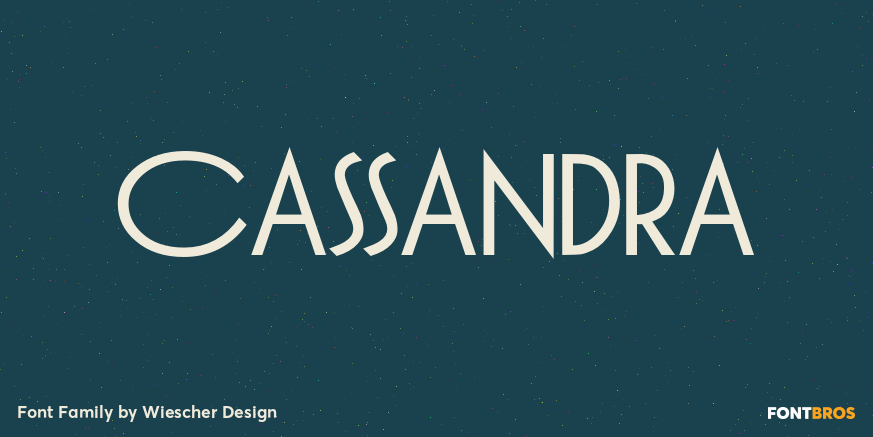
Cassandra
About Cassandra
Cassandra has two kinds of letters, wide Capitals on the (shift) capitals and narrow ones on the (no shift) lowercase. You can match them as you like. Take one narrow S and a wide one or two wide ones, whatever turns you on. It will almost always look…